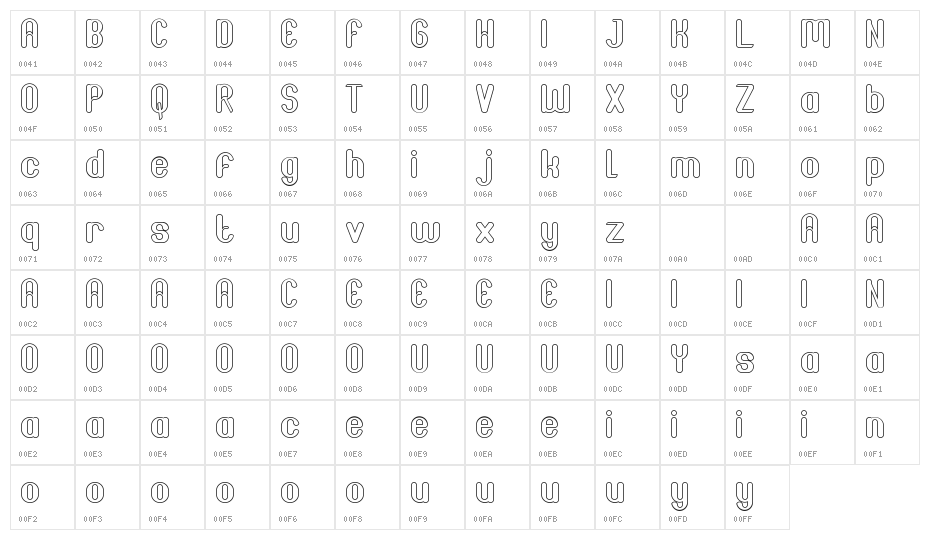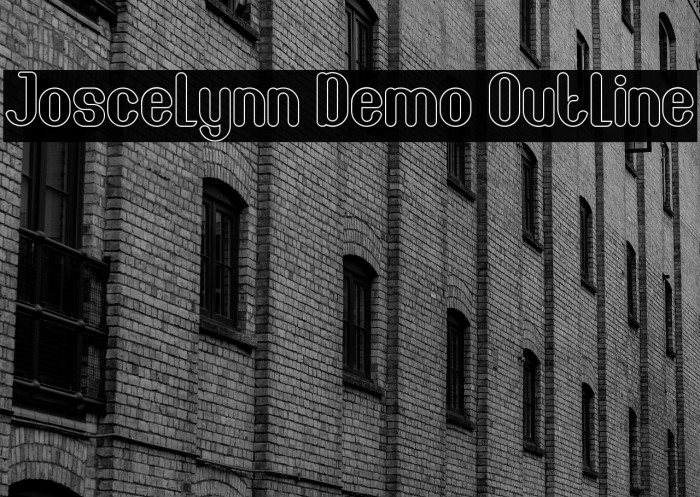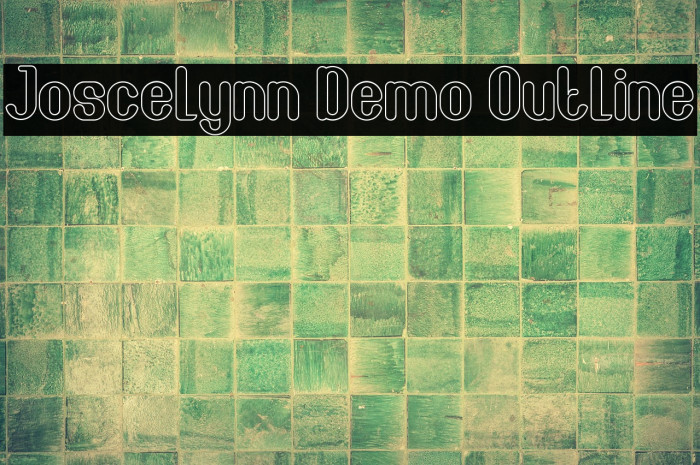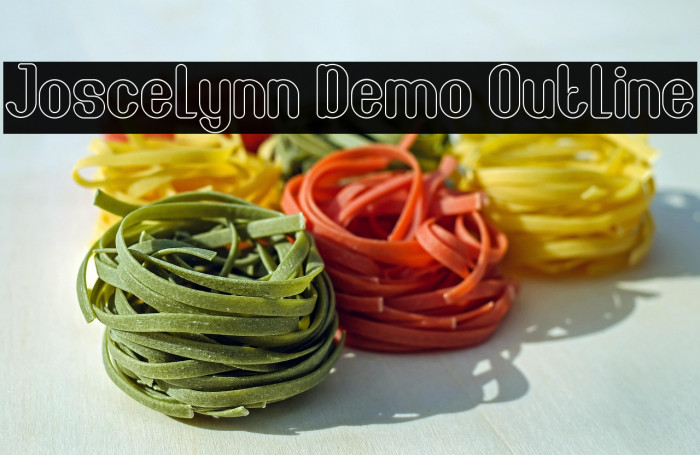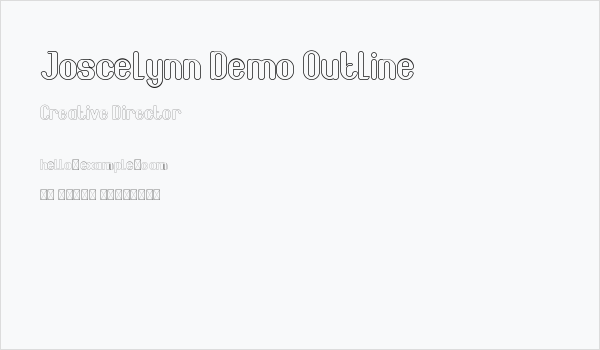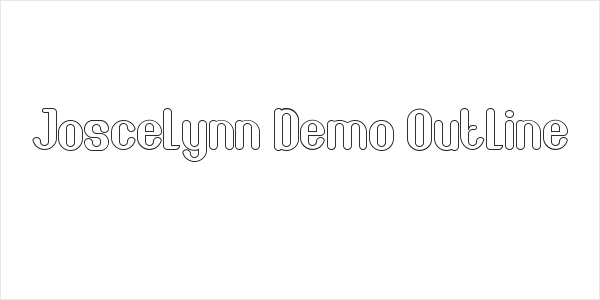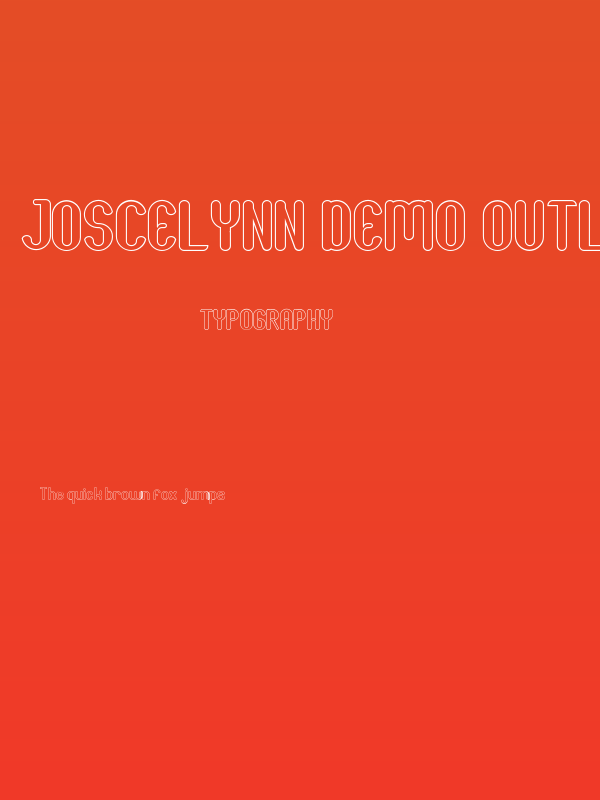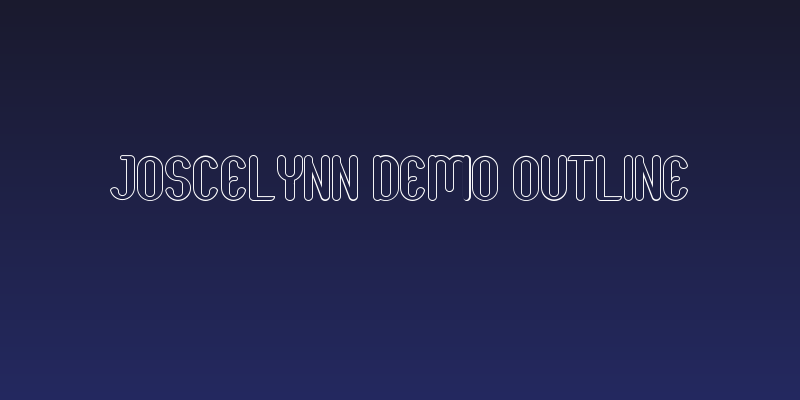
Joscelynn Demo Outline Font
Joscelynn Demo Outline Description
This font features a unique outline style that gives it a modern and playful appearance. The characters are bold and rounded, with a consistent thickness throughout, creating a harmonious and balanced look. The uppercase and lowercase letters maintain a uniform design, enhancing readability while adding a touch of creativity. The font's outline nature makes it ideal for designs that require a standout, eye-catching element. Its clean lines and open spaces make it versatile for various applications, from digital media to print. The font's playful yet structured style makes it suitable for projects that aim to convey a sense of fun and modernity.